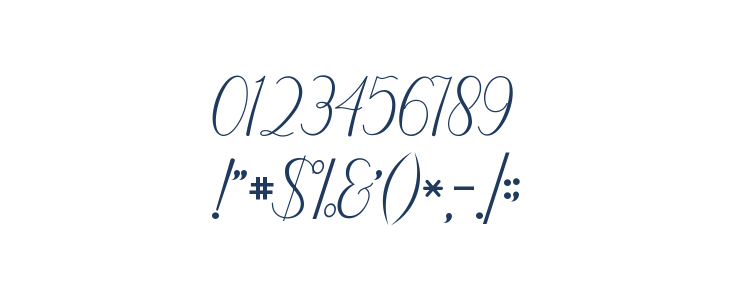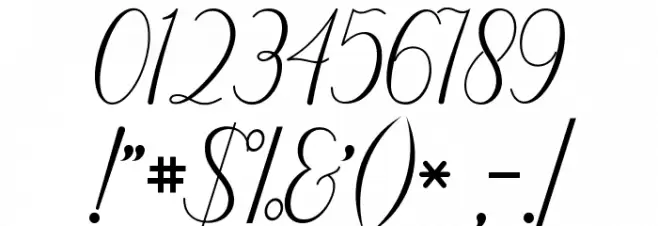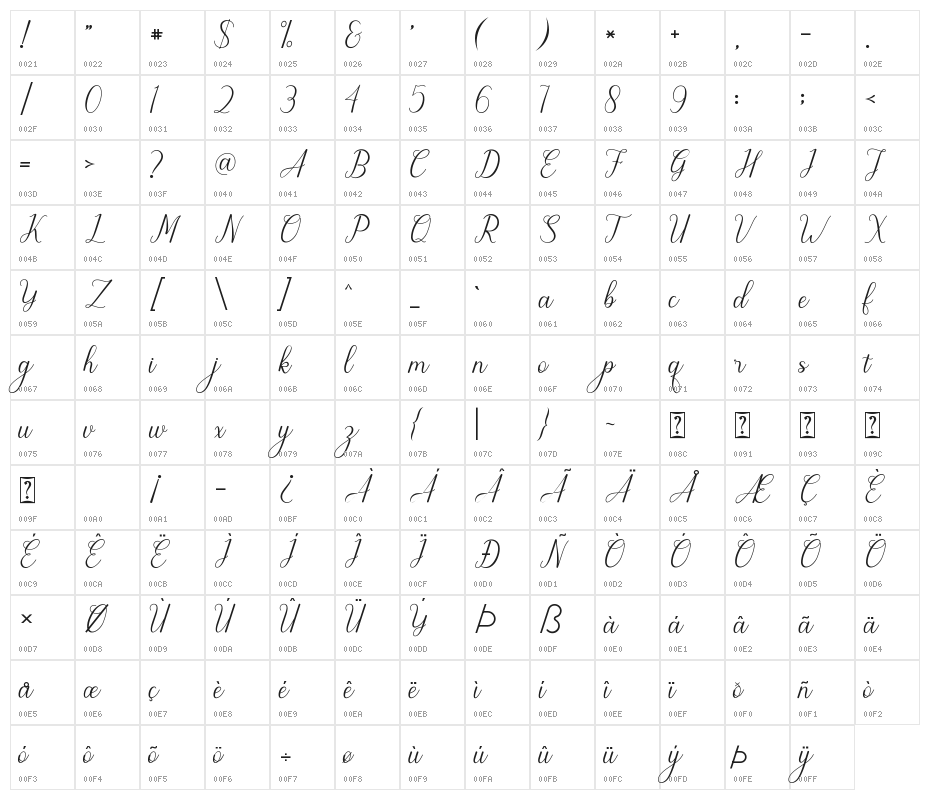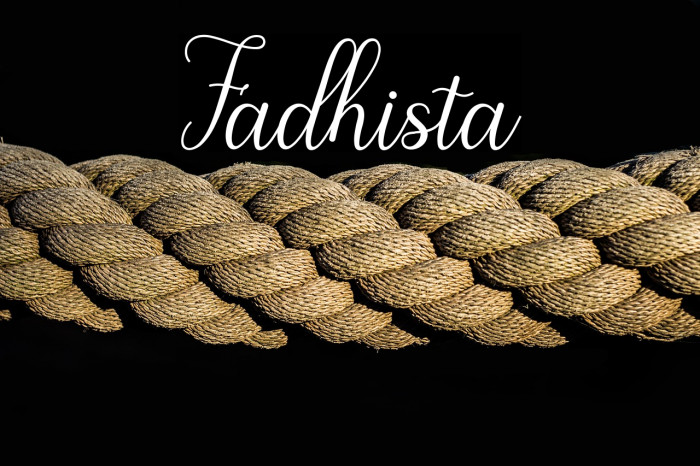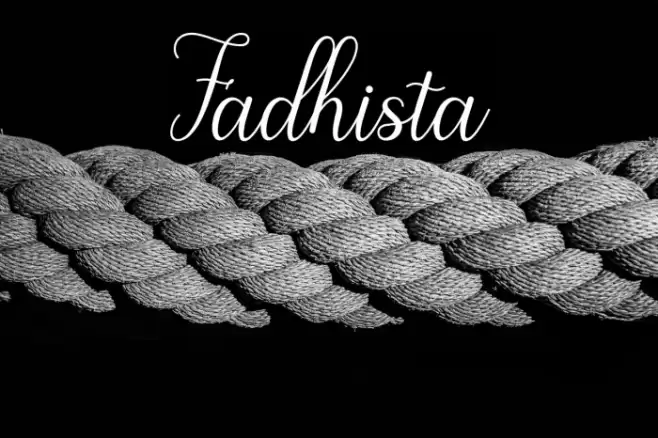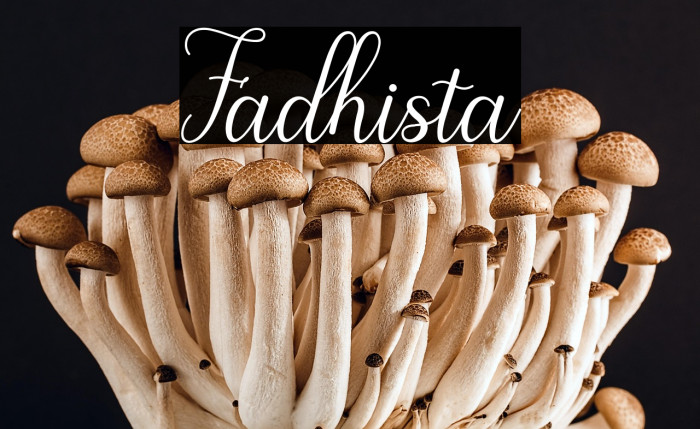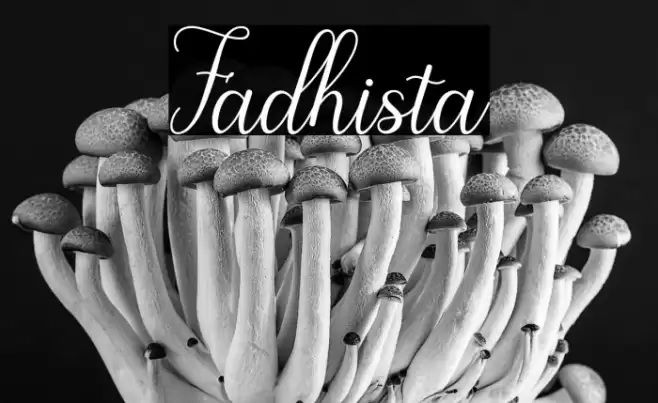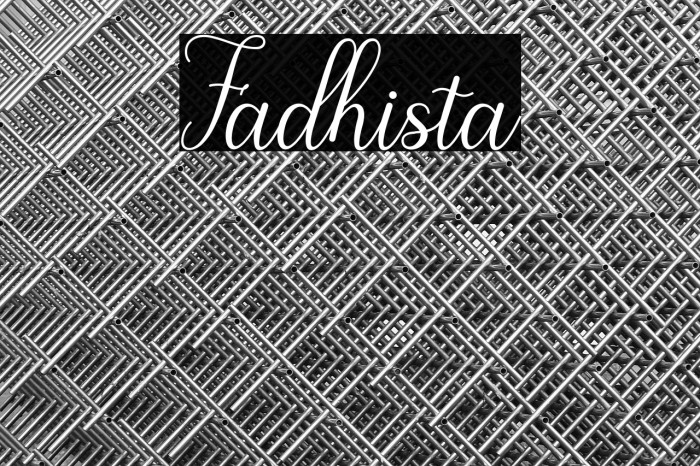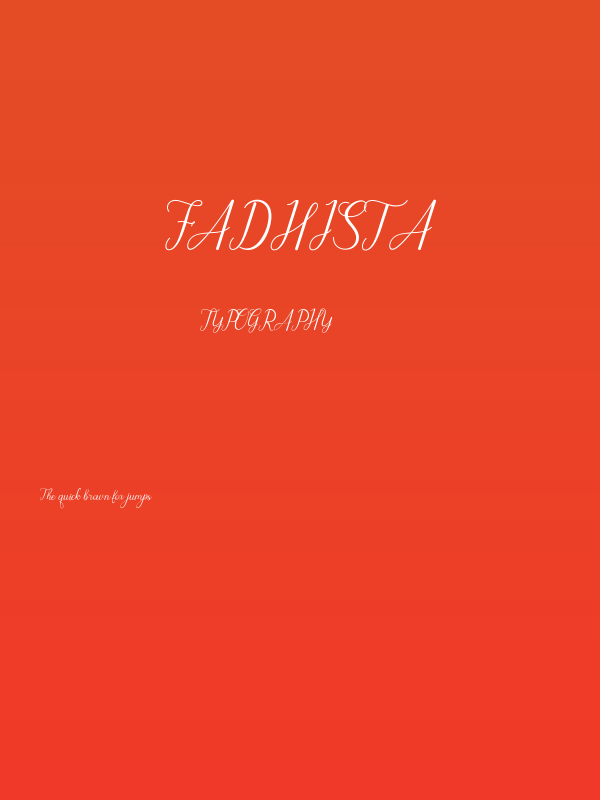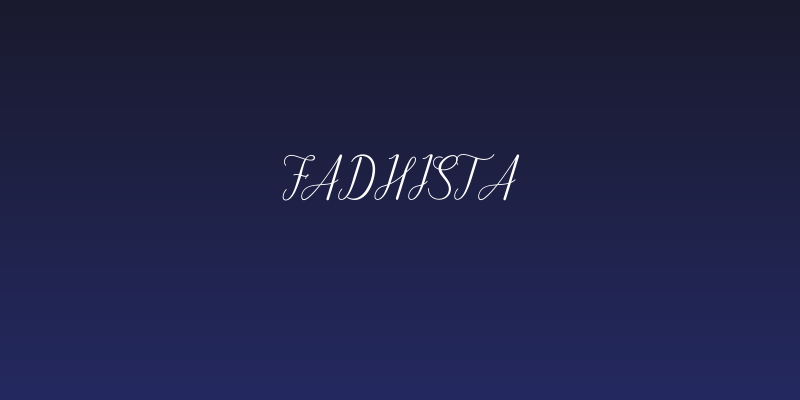
Fadhista Font
Fadhista Description
This elegant script font features flowing, interconnected characters with a classic and sophisticated appearance. The uppercase letters are tall and graceful, with delicate loops and swashes that add a touch of flair. The lowercase letters maintain a consistent flow, enhancing readability while preserving the font's decorative nature. Numbers and special characters are designed with the same attention to detail, ensuring a cohesive look across all elements. The font's thin strokes and high contrast give it a refined and polished feel, making it ideal for formal and elegant designs.
| Proposed Projects | Ideal for wedding invitations, elegant branding, luxury packaging, and formal event materials. |